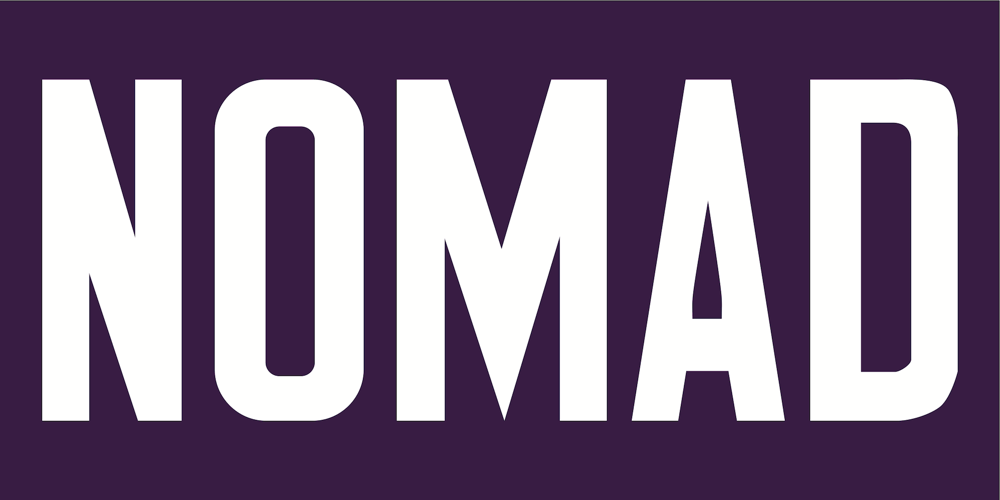
Nomad
Nomad font
Nomad Font Family was designed by Joseph Coniglio and published by Coniglio Type. Nomad contains 1 styles and family package options. NOMAD —Regular is a stand alone font.Nomad -Regular is a clean, interesting revival font. It is a Display font. Nomad, now exclusively in OpenType .oft by Joseph V Coniglio of Coniglio Type. It is a narrow boldfaced font. Its analog source was comprised of an extremely limited die cut, truly generic, craft, peel-and-stick vinyl set of capital letters of ascenders and numbers. It was purchased at a five & dime stores, hardware department from the 1970’s. My father owned an original set of characters: Nomad-Regular is nicely expanded to meet the needs of OpenType. The original adhesive labels adhered to the bows of that small boats so fisherman wouldn’t get turned away at the Canadian border for not having their vessels tagged and listed with the appropriate license name and numbers, recorded by customs. It was a required serialization of letters and numbers marked on the side of their vessels. On the other hand, most beer and whisky drinking fishers, card players and bait casters would rather not deal with it, but the boat could not cross over the border without them. (Once part of Market LTD from the 1990’s, a collection of limited faces, mostly alpha-numeric and some just plain numeric, used primarily in retail and display situations and titling.)Designer: Joseph V ConiglioAuthor: Coniglio Type